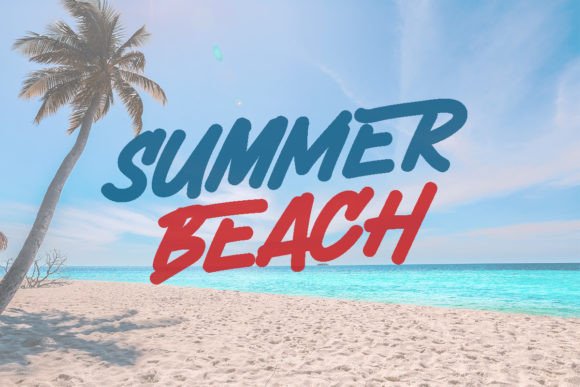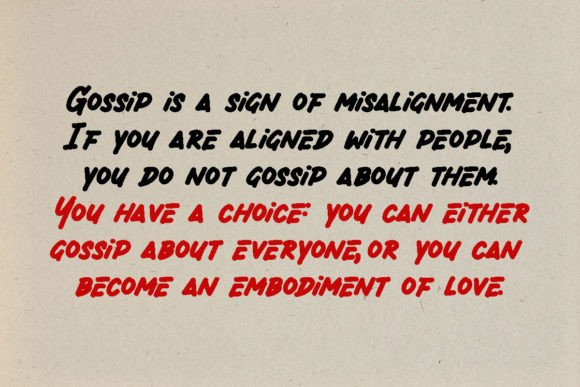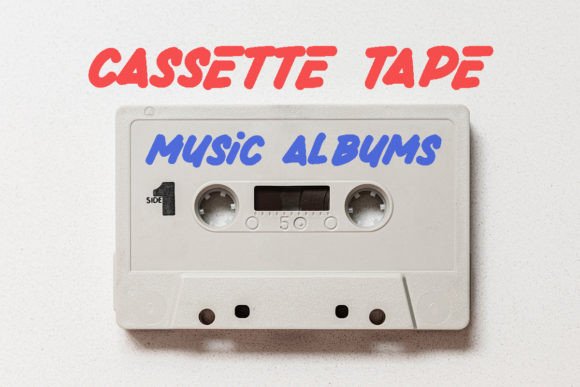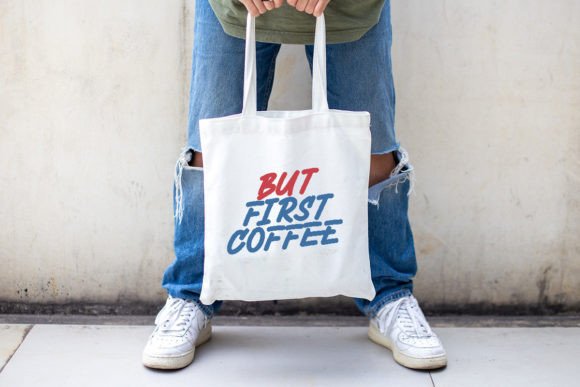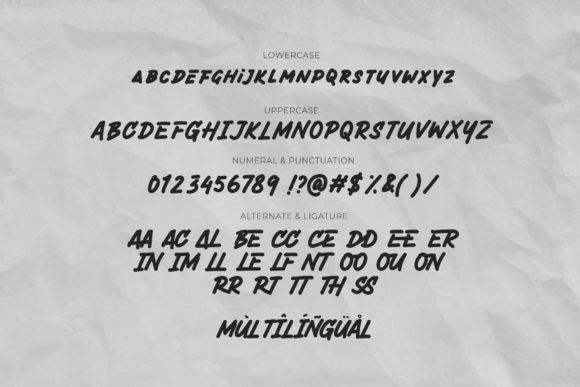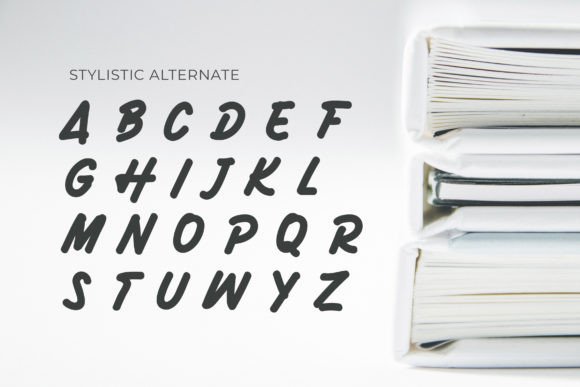
Introducing Active Marker Font: A Handwritten Chalkboard-Inspired Typeface
Are you tired of using the same old fonts in your designs? Do you want to add a touch of authenticity and personality to your projects? Look no further than Active Marker Font, a unique and versatile typeface inspired by the charm of handwritten chalkboard signs. In this article, we’ll dive into the features and benefits of Active Marker Font, and explore how it can elevate your designs and take them to the next level.
The Inspiration Behind Active Marker Font
Active Marker Font is inspired by the classic chalkboard signs you’d find in restaurants, bars, shops, or at the market. These signs, often written in a hurry with a marker or chalk, have a certain charm and character that’s hard to replicate with digital fonts. The creators of Active Marker Font sought to capture this essence and bring it to the digital world, resulting in a font that’s both authentic and eye-catching.
What Sets Active Marker Font Apart
Active Marker Font stands out from other marker fonts on the market for several reasons. Firstly, it boasts interesting ligatures that add a touch of personality to your text. These ligatures, which are combinations of letters that are designed to fit together, create a sense of fluidity and natural flow. Additionally, the font features a range of swashes and glyphs that can be easily accessed thanks to its PUA (Private Use Area) encoding.
PUA Encoding: What It Means for Designers
PUA encoding is a game-changer for designers. It allows you to access all the glyphs and swashes in the font using a keyboard shortcut or through software like Adobe Illustrator or Photoshop. This means you can easily customize your text and add unique touches to your designs without having to manually create each glyph or swash.
The Benefits of Using Active Marker Font
So why choose Active Marker Font for your next design project? Here are just a few benefits of using this versatile typeface:
- Authentic look: Active Marker Font captures the essence of handwritten chalkboard signs, adding a touch of authenticity to your designs.
- Personality: The font’s ligatures and swashes give your text a unique personality that sets it apart from more traditional fonts.
- Flexibility: With PUA encoding, you can easily access a range of glyphs and swashes to customize your text.
Who Can Benefit from Active Marker Font?
Active Marker Font is perfect for a range of designers and crafters, including:
- Graphic designers: Add a touch of personality to your branding, packaging, or advertising designs.
- Sign makers: Create eye-catching signs and displays that replicate the look of handwritten chalkboard signs.
- Crafters: Use Active Marker Font to add a personal touch to your craft projects, such as handmade cards or gift tags.
- Digital artists: Incorporate Active Marker Font into your digital art, such as illustrations or mixed media pieces.
Active Marker Font is a unique and versatile typeface that’s perfect for designers and crafters looking to add a touch of authenticity and personality to their projects. With its PUA encoding and range of ligatures and swashes, this font is easy to use and offers endless possibilities for customization. Whether you’re a graphic designer, sign maker, crafter, or digital artist, Active Marker Font is sure to become a go-to in your design arsenal.